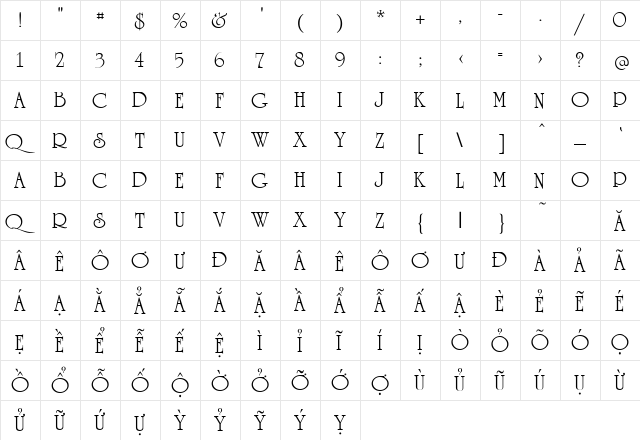
.VnUniverseH Normal
Design Context for .VnUniverseH Typeface
.VnUniverseH is a composed and adaptable typeface that performs quietly and consistently across a wide range of design contexts.
Pro Tip: Use .VnUniverseH in both headline and body roles to test its range before committing to a single application.